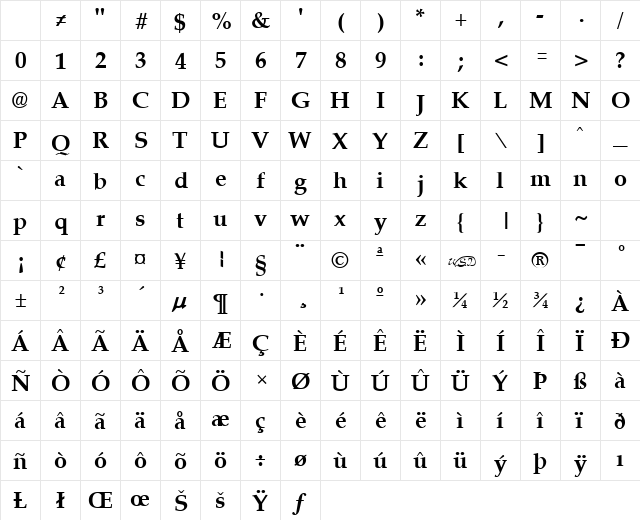
Palisade fed
Style: fed
Palisade Family
Palisade fed
Design Context for Palisade
Palisade is a composed and adaptable typeface that performs quietly and consistently across a wide range of design contexts.